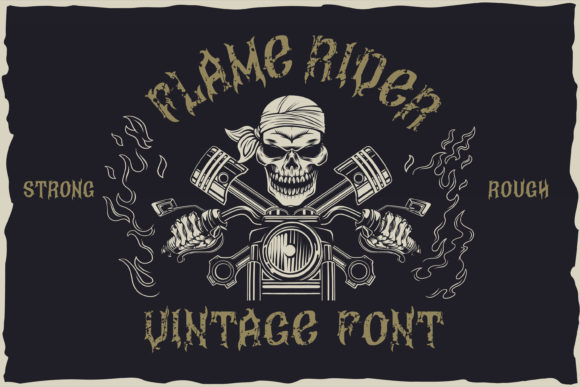
Witness the audacious spirit of typography with Flame Rider Font, the captivating display font that ignites creativity and leaves an indelible mark on your designs. Designed by the visionary Fractal Font Factory, this font is an emblem of boldness, assertion, and style that will propel your creations into the limelight.
With its flawlessly crafted characters, Flame Rider Font possesses an aura of dominance and confidence. Each letter exudes a raw power that commands attention and demands respect. Whether you're crafting a captivating logo, etching a memorable brand identity, or designing a label that speaks volumes, this font is your trusted companion.
Visualize your words taking flight, adorned in the fiery elegance of Flame Rider Font. Its sharp edges and dynamic curves weave a captivating narrative, leaving a lasting impression on your audience. Experience the joy of crafting designs that resonate with strength and individuality, designs that break free from the mundane and embrace the extraordinary.
Unleash your inner artist and let Flame Rider Font ignite your imagination. Its versatility knows no bounds, adapting seamlessly to a myriad of creative endeavors. From T-shirt designs that command attention to posters that evoke emotion, this font is your ultimate weapon of expression.
Don't settle for ordinary typefaces. Choose Flame Rider Font, the font that ignites passion and transforms your designs into masterpieces. Its unique personality and captivating aesthetic will set your work apart, leaving an indelible mark on the hearts and minds of your audience. Embrace the fiery spirit of creativity and let Flame Rider Font guide you to typographic brilliance.